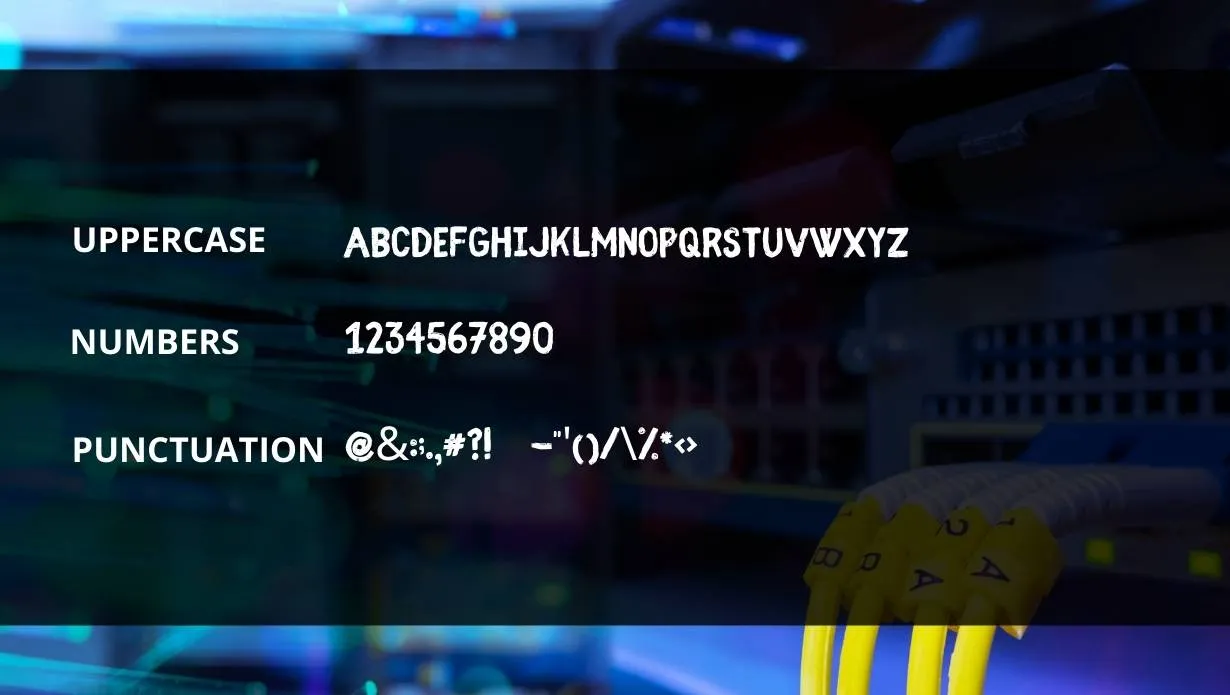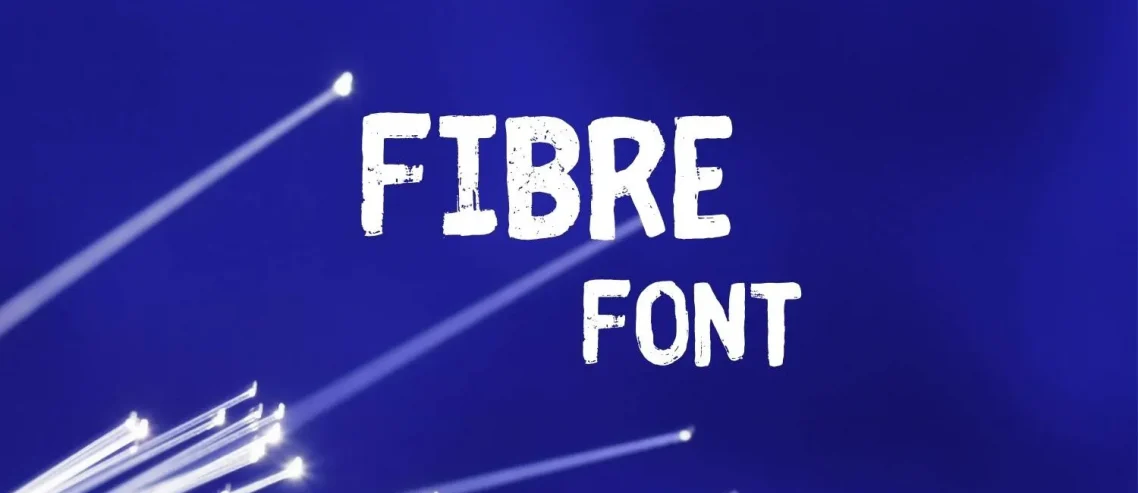
Fibre Font is a popular sans-serif typeface that was designed in the early 1990s. The designer, Christian Schwartz, was inspired by the work of German typeface designer Rudolf Koch. This Font has a distinctive look that is both modern and classic. It is often used for headlines and other display purposes.
View of Fibre Font
Fibre Font Info
| Name | Fibre Font |
| Designer | Christian Schwartz |
| Style | Display |